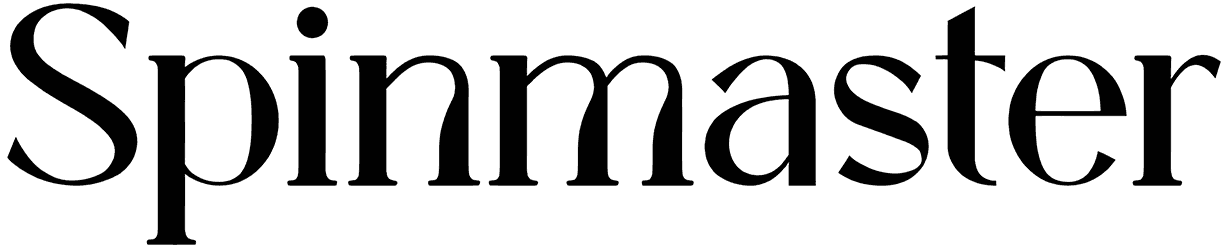
Spinmaster Font
Listen to the delicate letters from Spinmaster and all they have to say about your luxury business through their elegant yet professional approach. Let’s just say, you can never go wrong with a stylish serif font like Spinmaster in your important branding designs.
In fact, you’re going to make your clients proud using this fancy font with its glamorous style to promote brands of watches, pieces of jewelry, cosmetic products, home furnishing services, and everything else along the same theme.